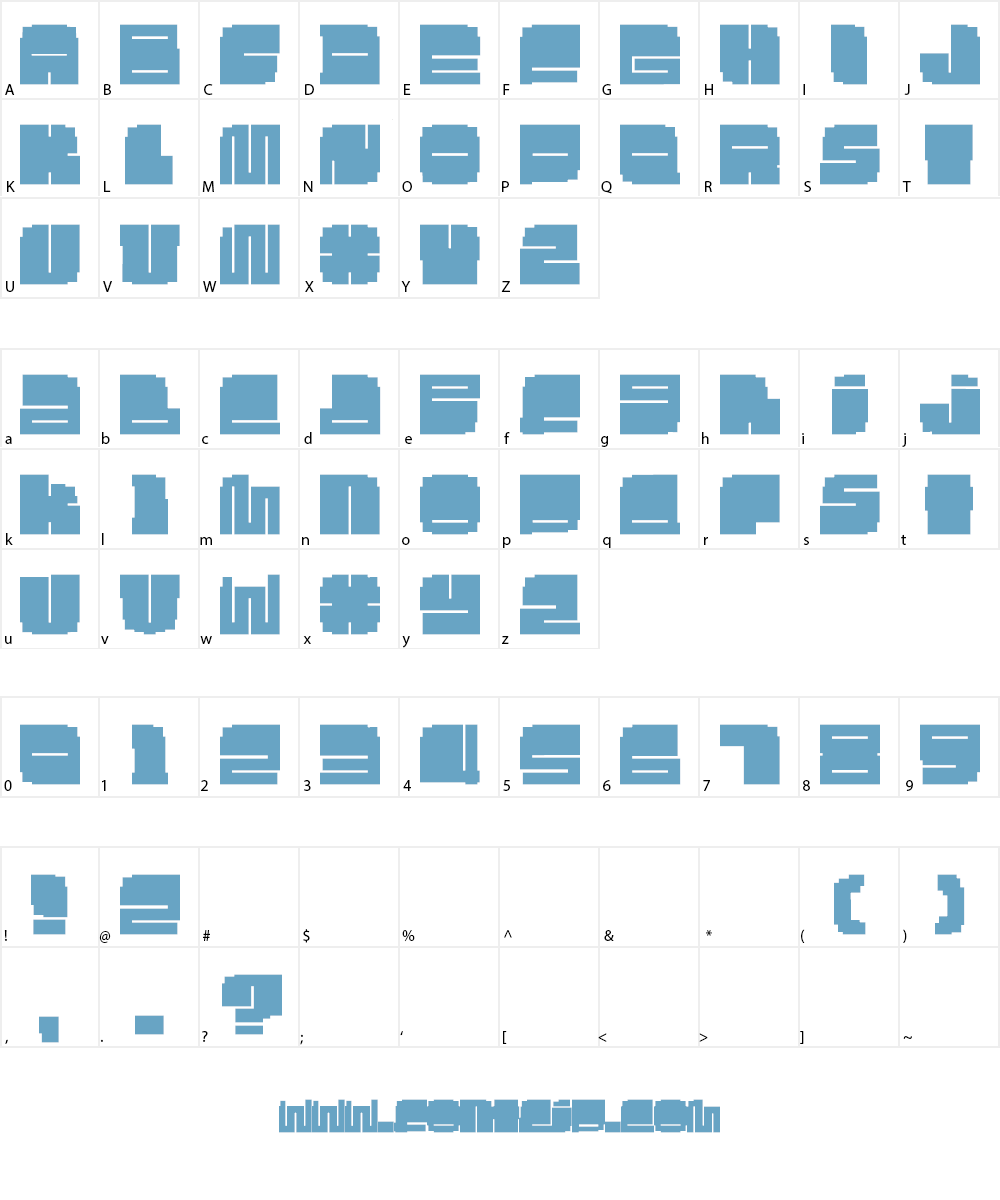
Silo was designed to be used sans kerning and leading for create maze-like brick patterns. Not so hot for screen usage, it comes up a treat in print.
Try setting a block of text in Silo, with no fill and a fine outline, or reversing an image through it.